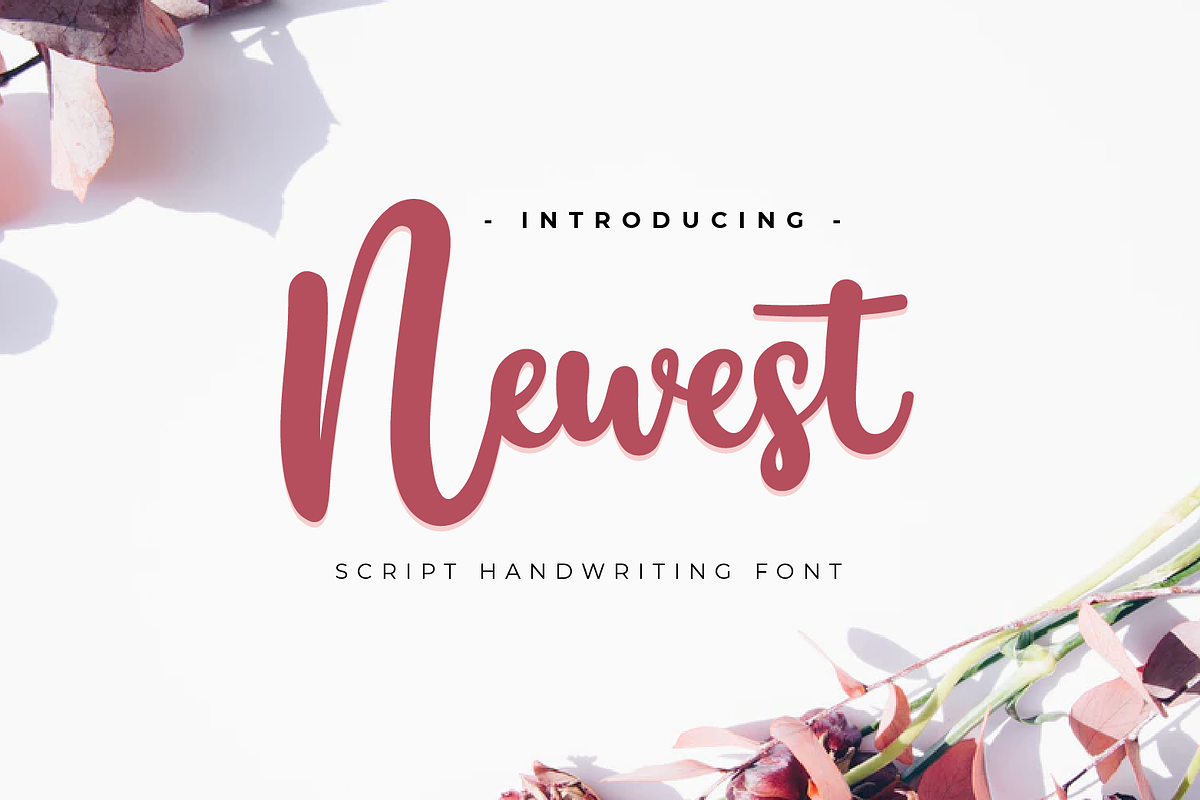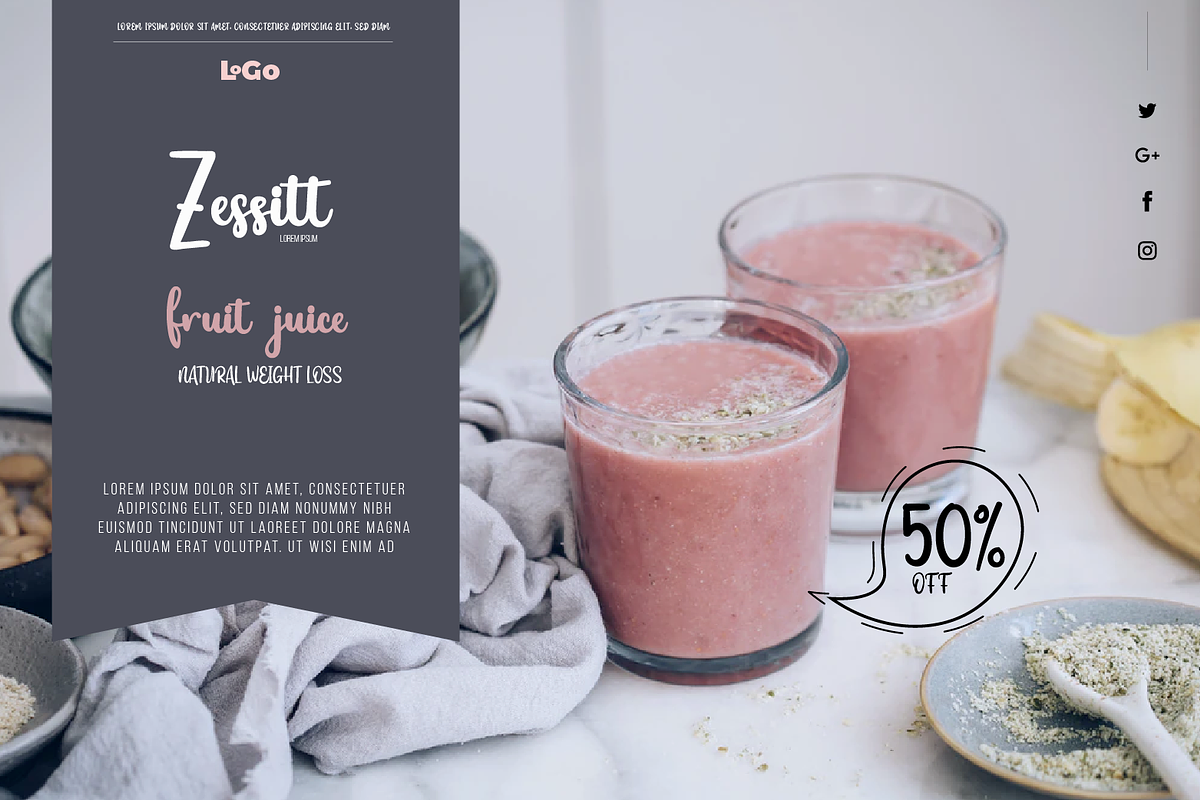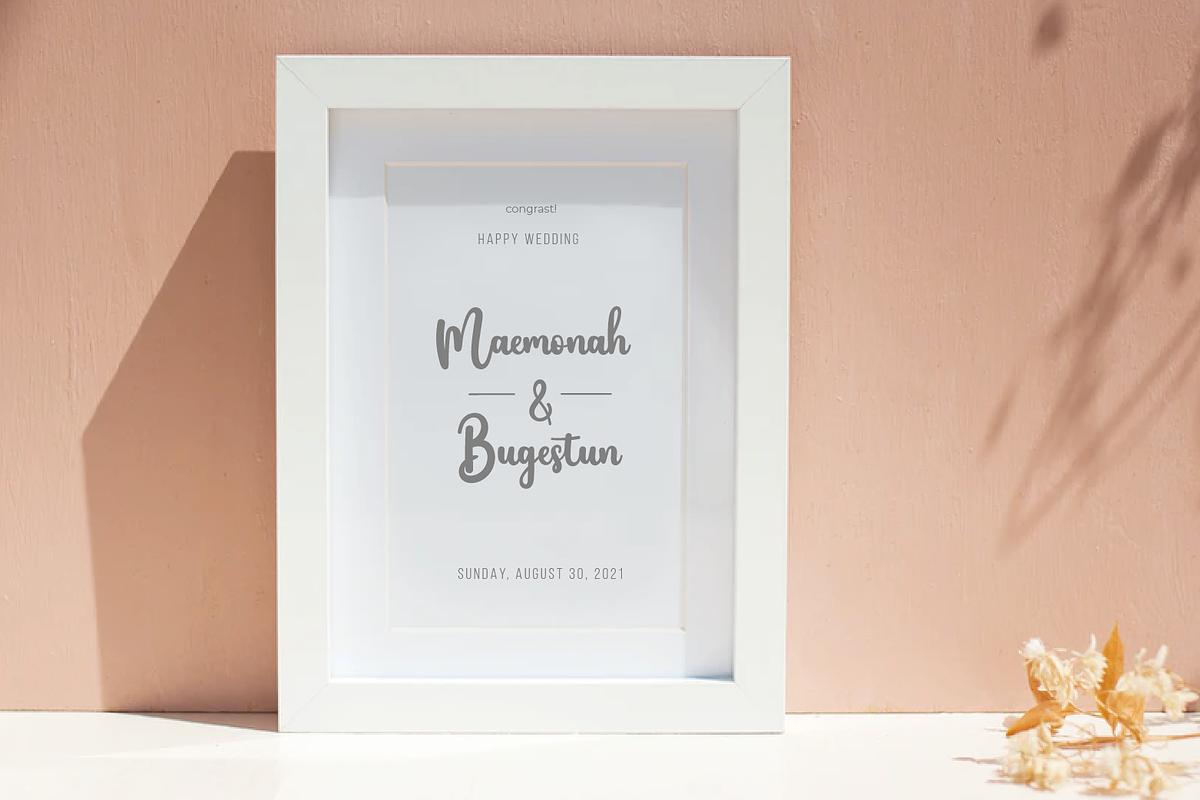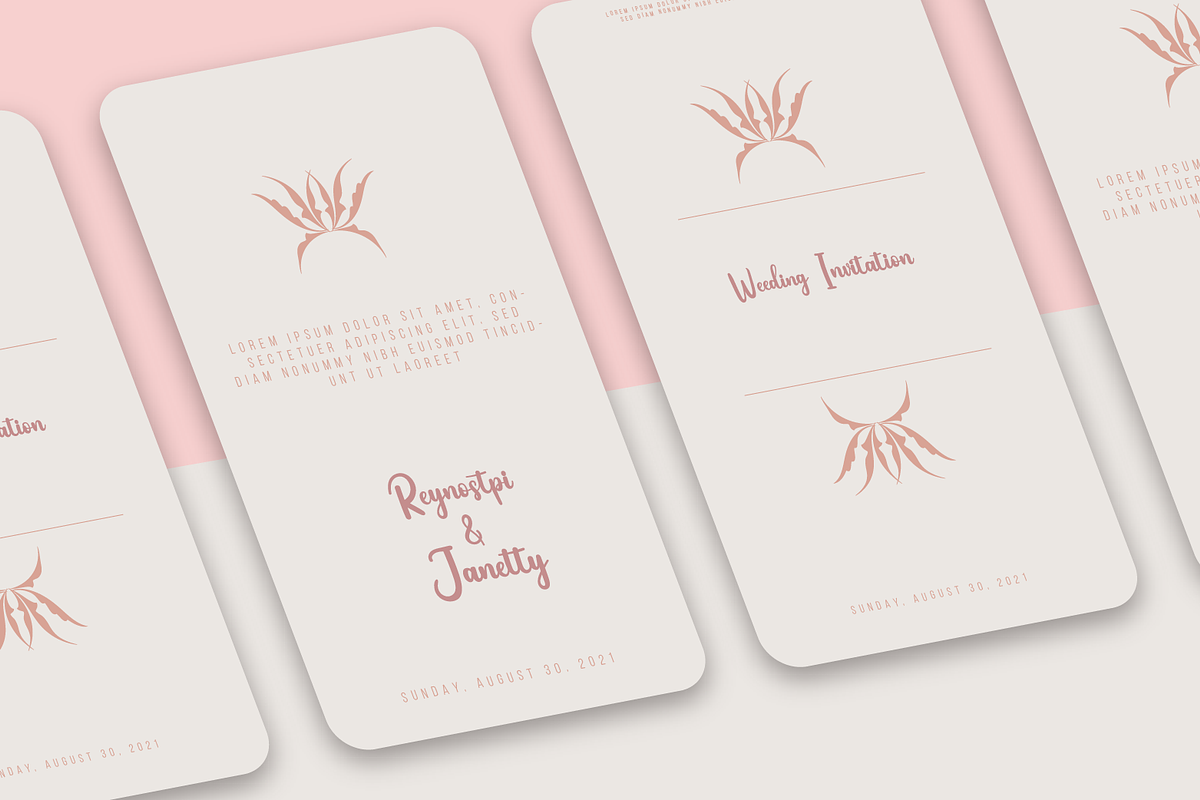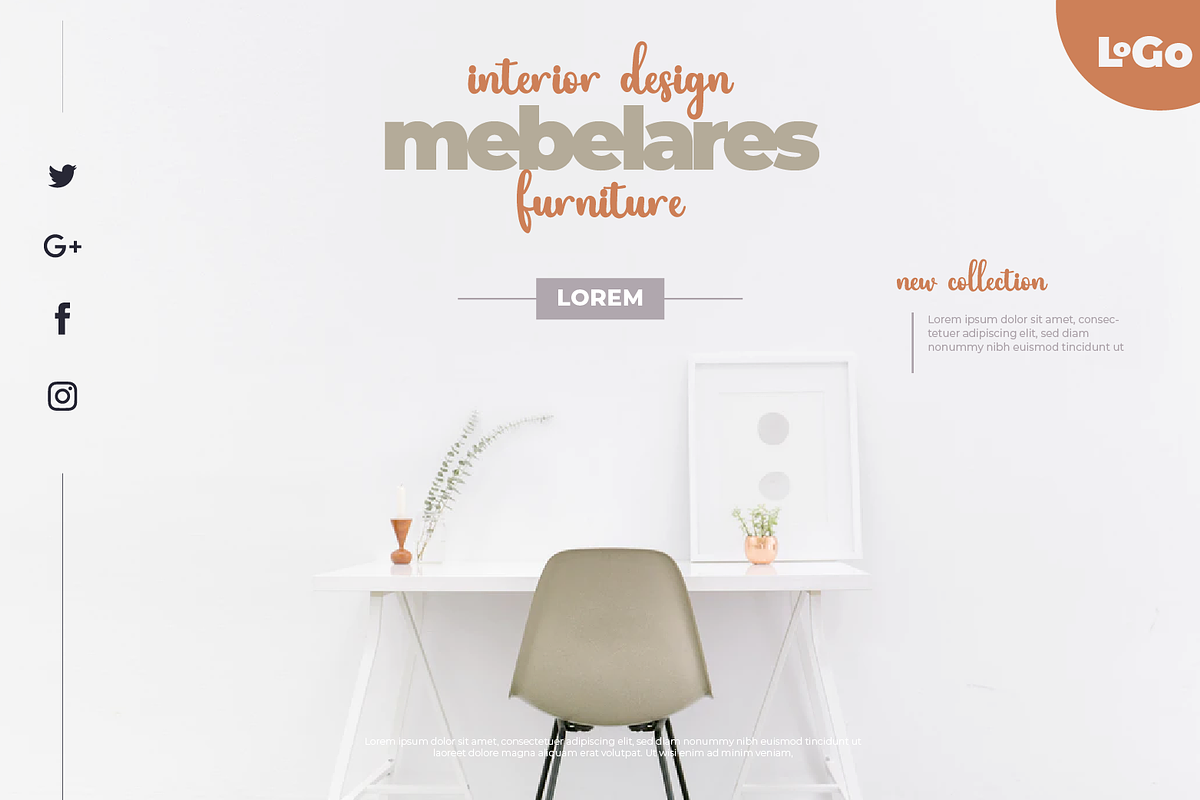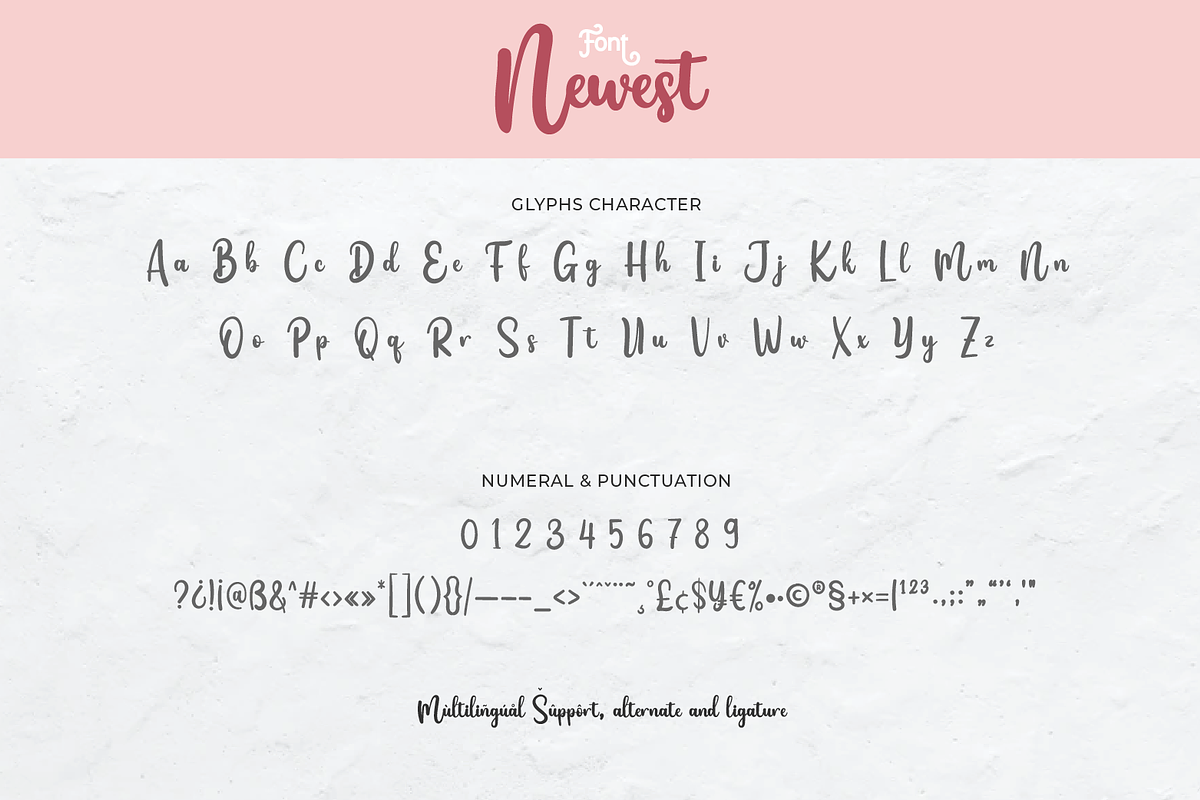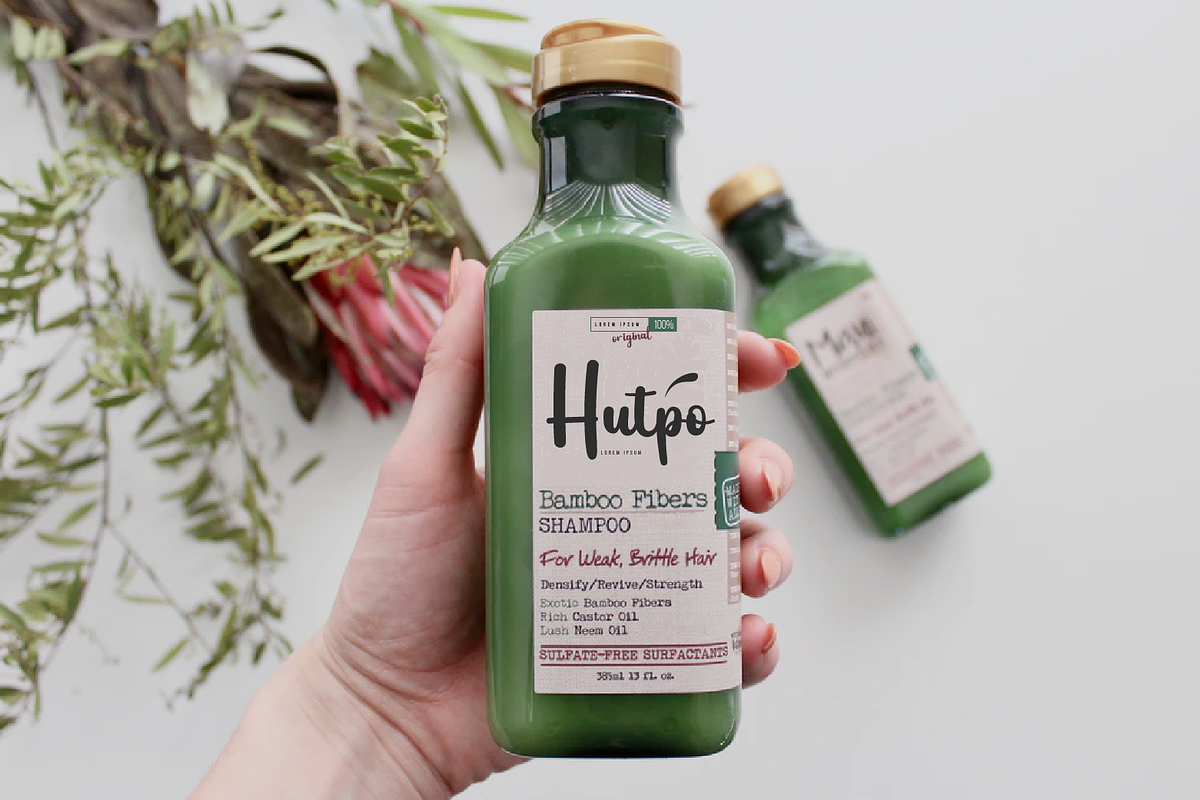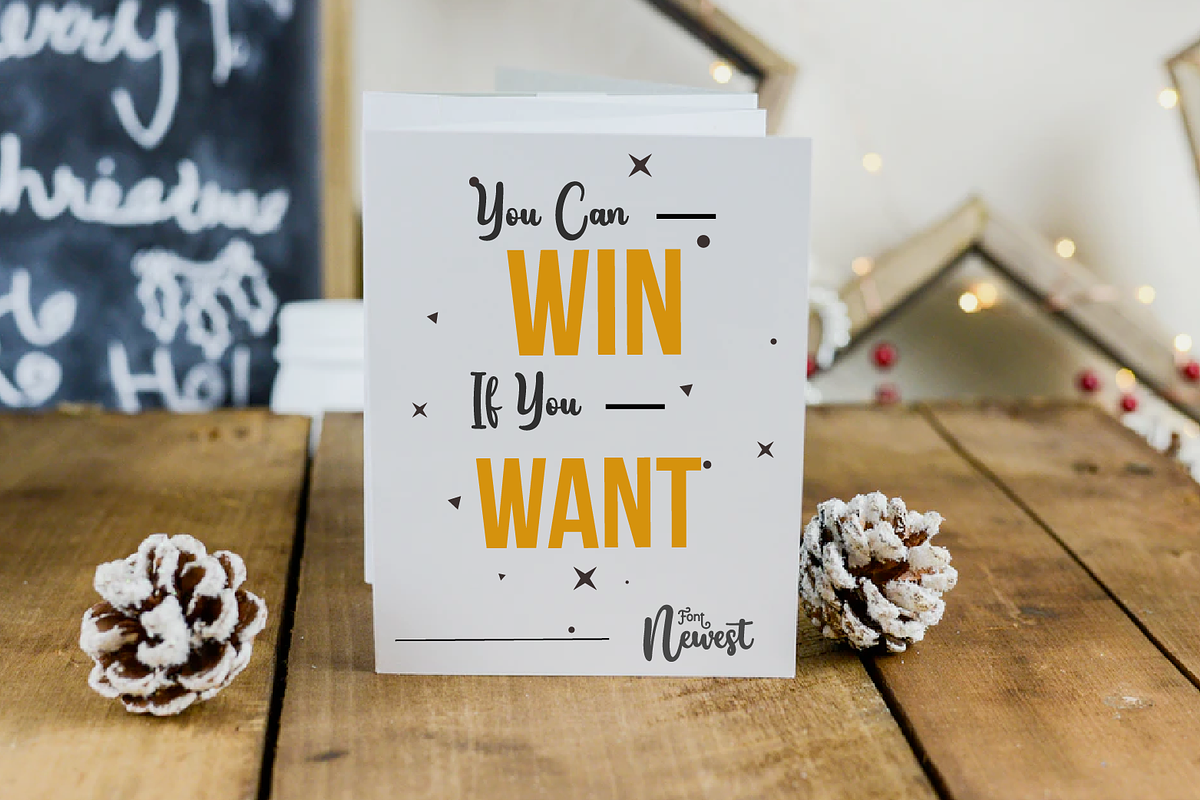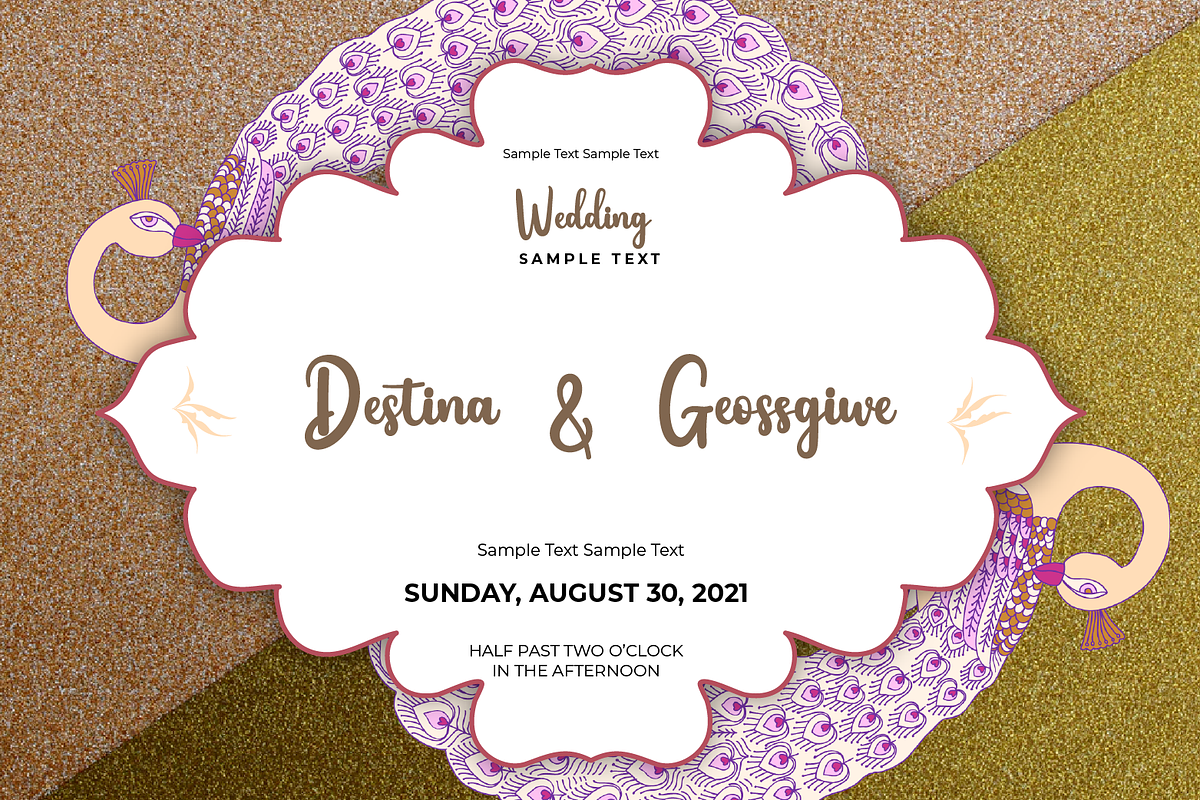
Newest
Newest is a sweet and trendy brushed handwritten font. Its distinct and well rounded letters make this font a masterpiece. Fall in love with its incredibly adaptable style and use it to create spectacular designs!